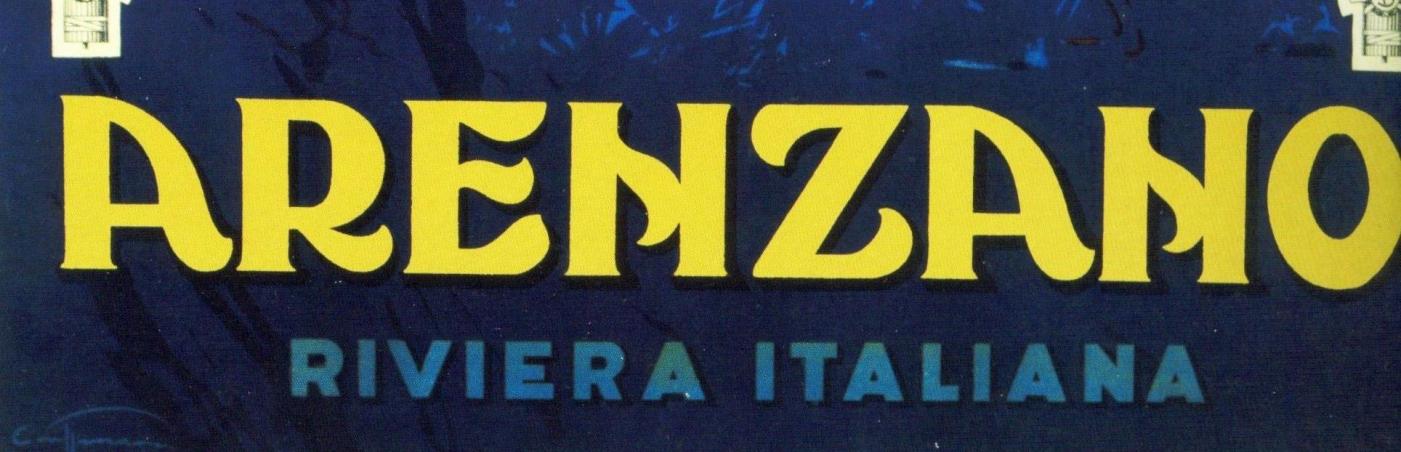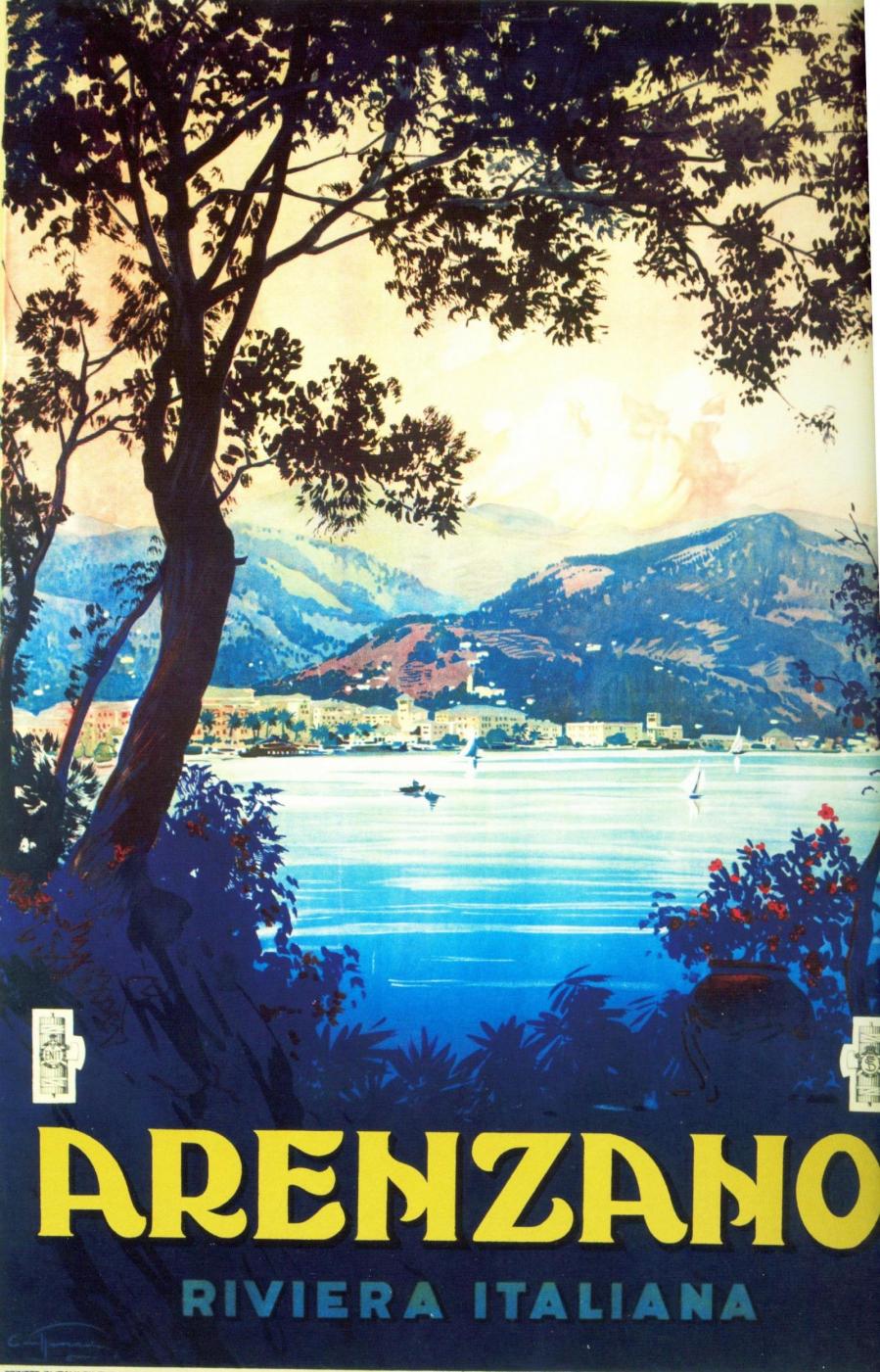
Arenzano, 1927 Italian Travel Poster Font Identity?
After a long and fruitless day of research I have decided to seek guidance here! I would love to use the title font from this beautiful travel poster in a commercial project, but am uncertain whether I can find the specific font digitally available or whether I might need to hire a typographer to recreate it. If anyone could point me in a helpful direction, or, better still, identify the font, I would hugely appreciate it! The poster is by Aurelio Craffonara, published in 1927. I'm looking to recreate the yellow font used for the name "Arenzano". Close similarities to other fonts could also prove helpful.
The entire poster was hand drawn, including the type.
Not finding anything close in a digital typeface; you’ll need to hire someone to recreate it.